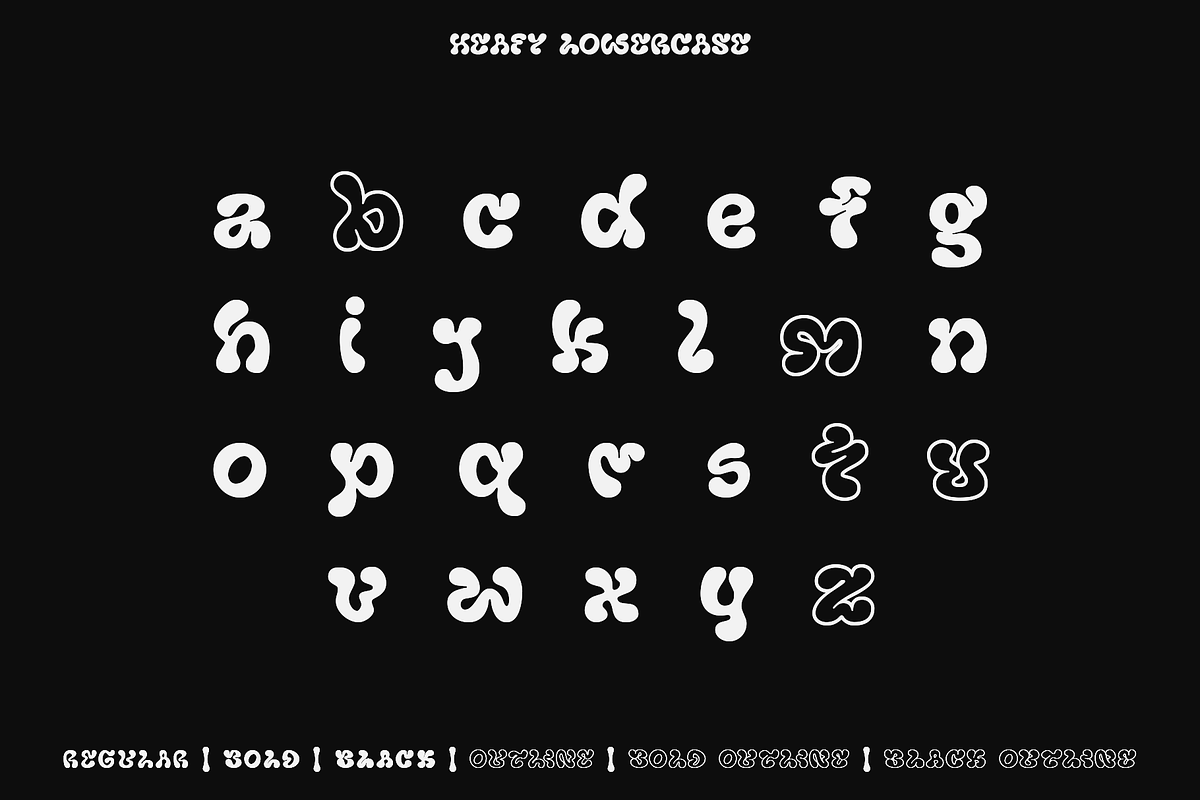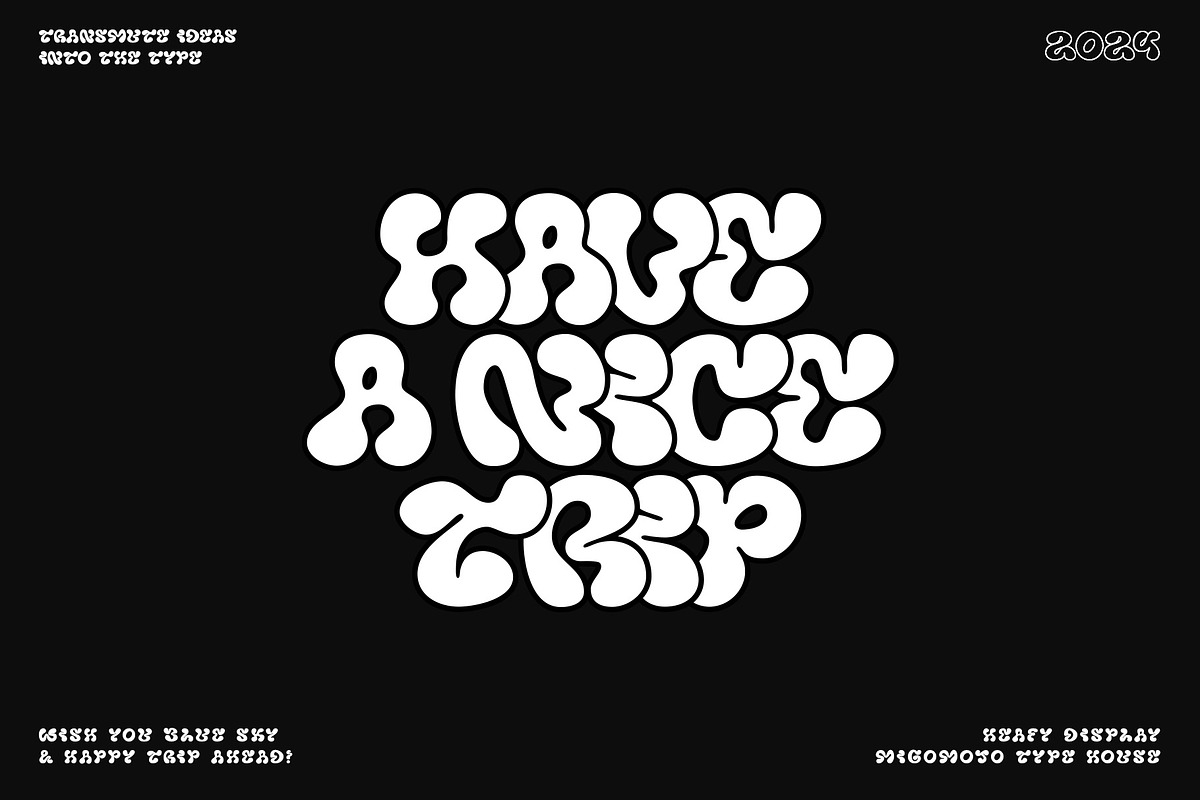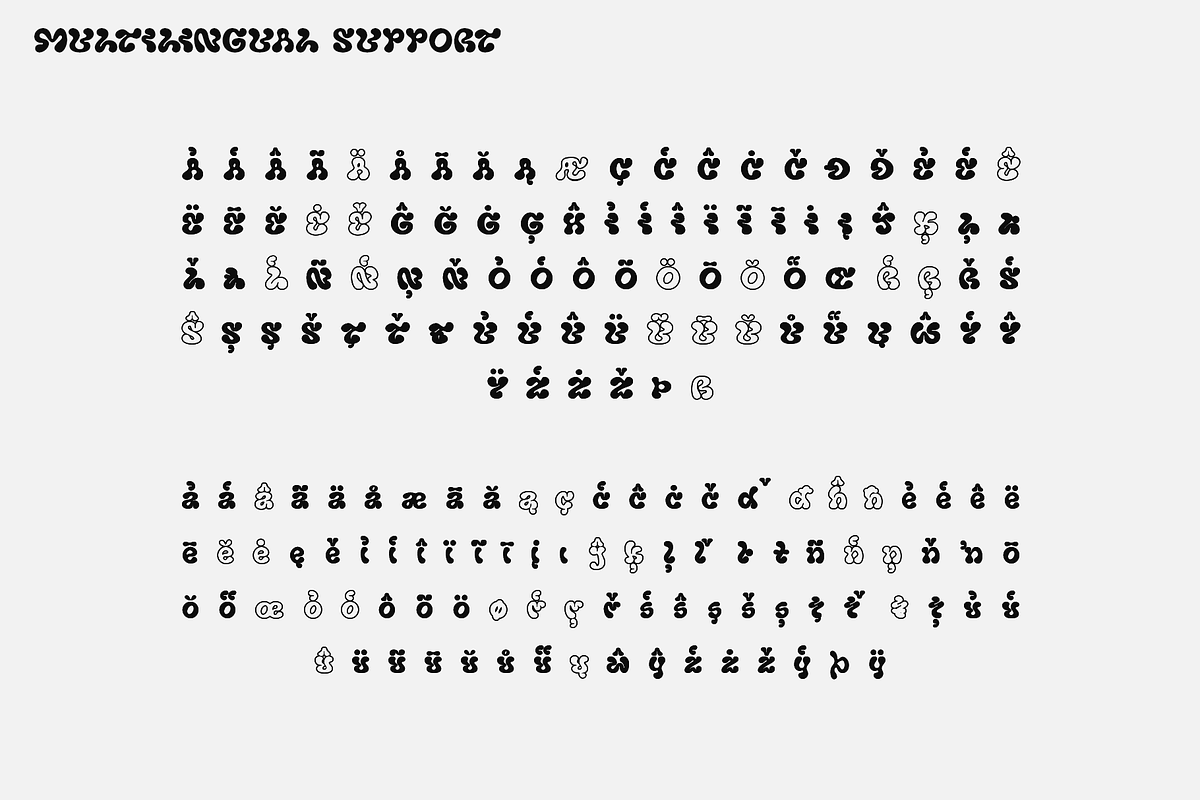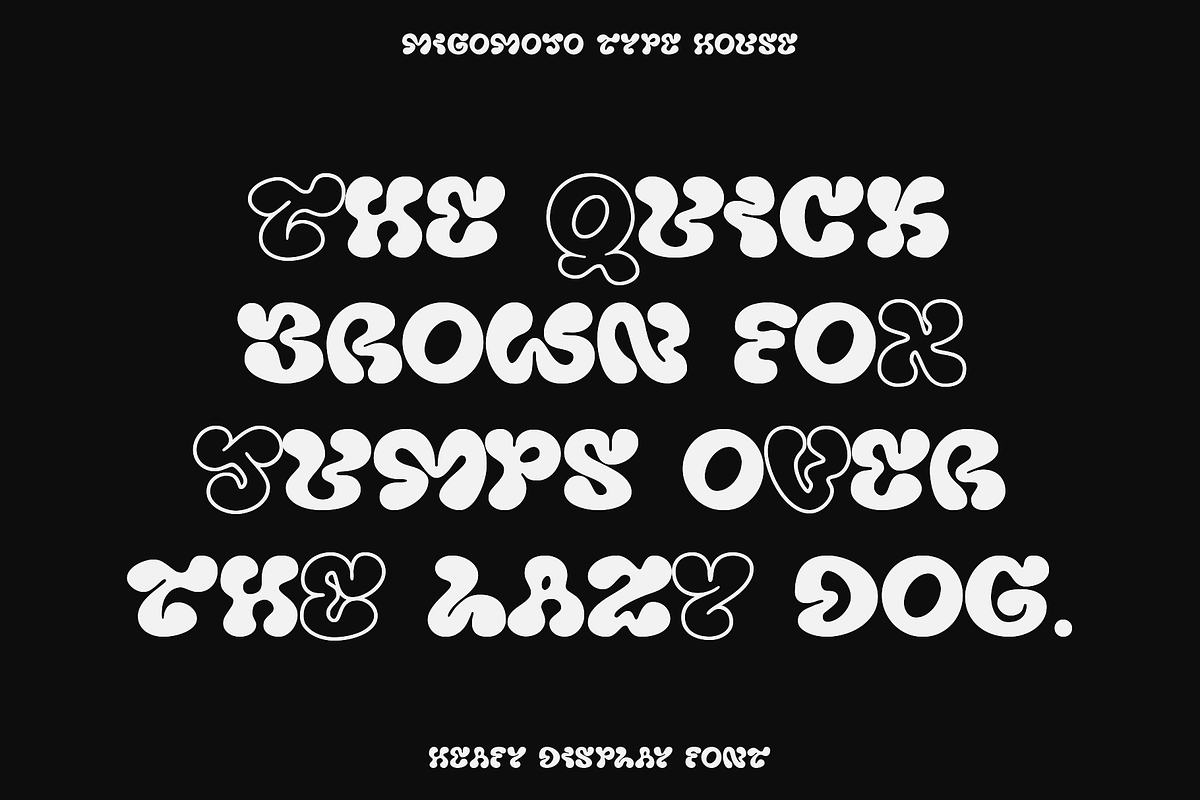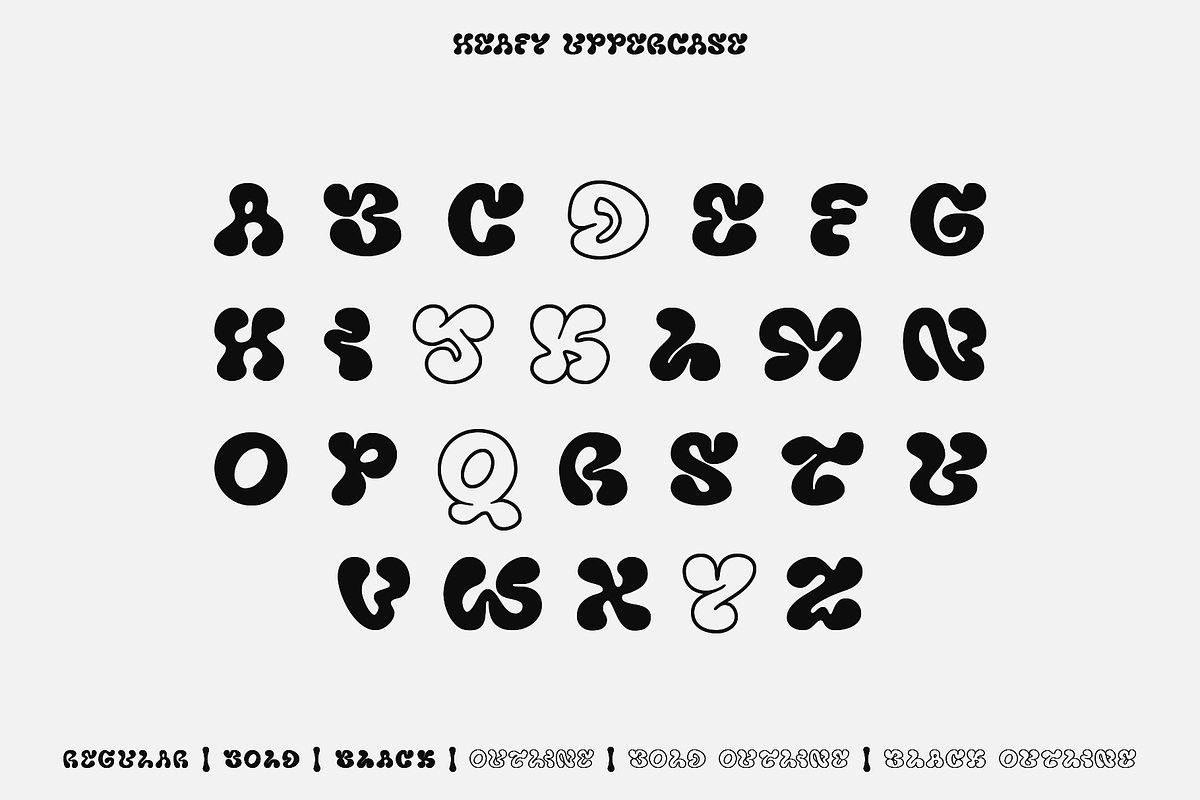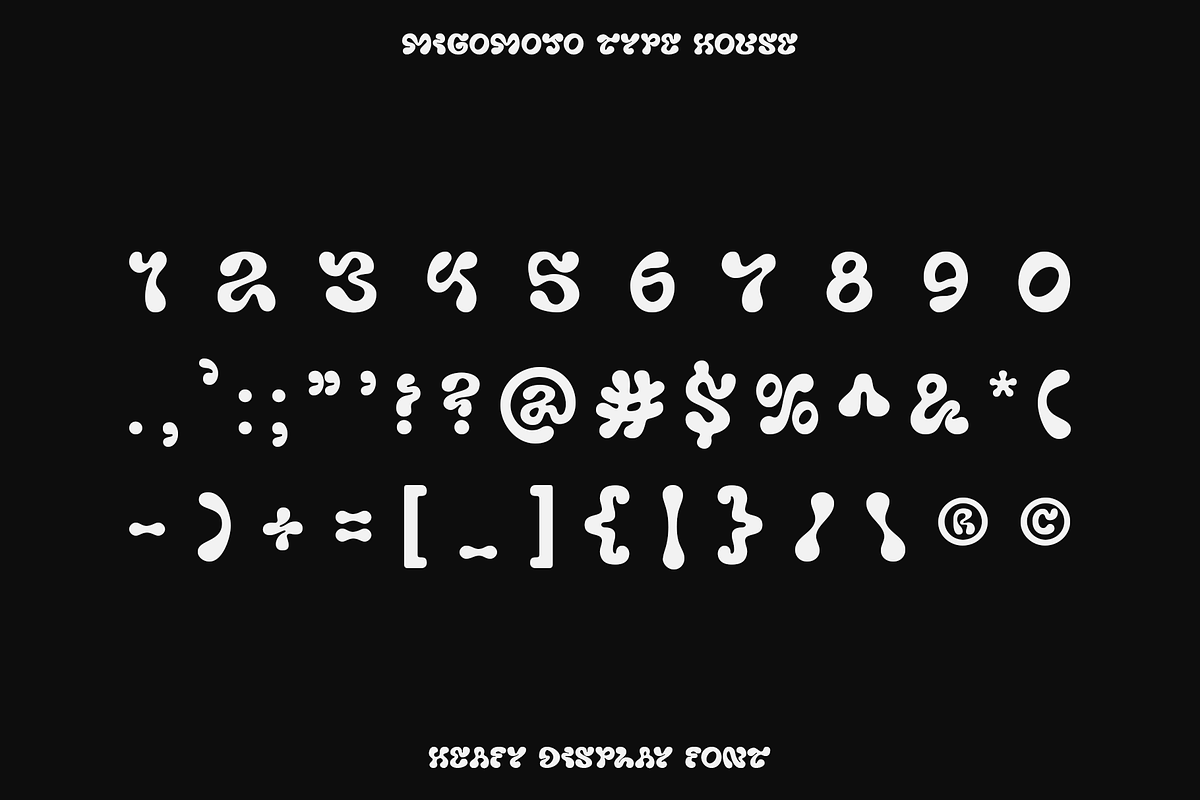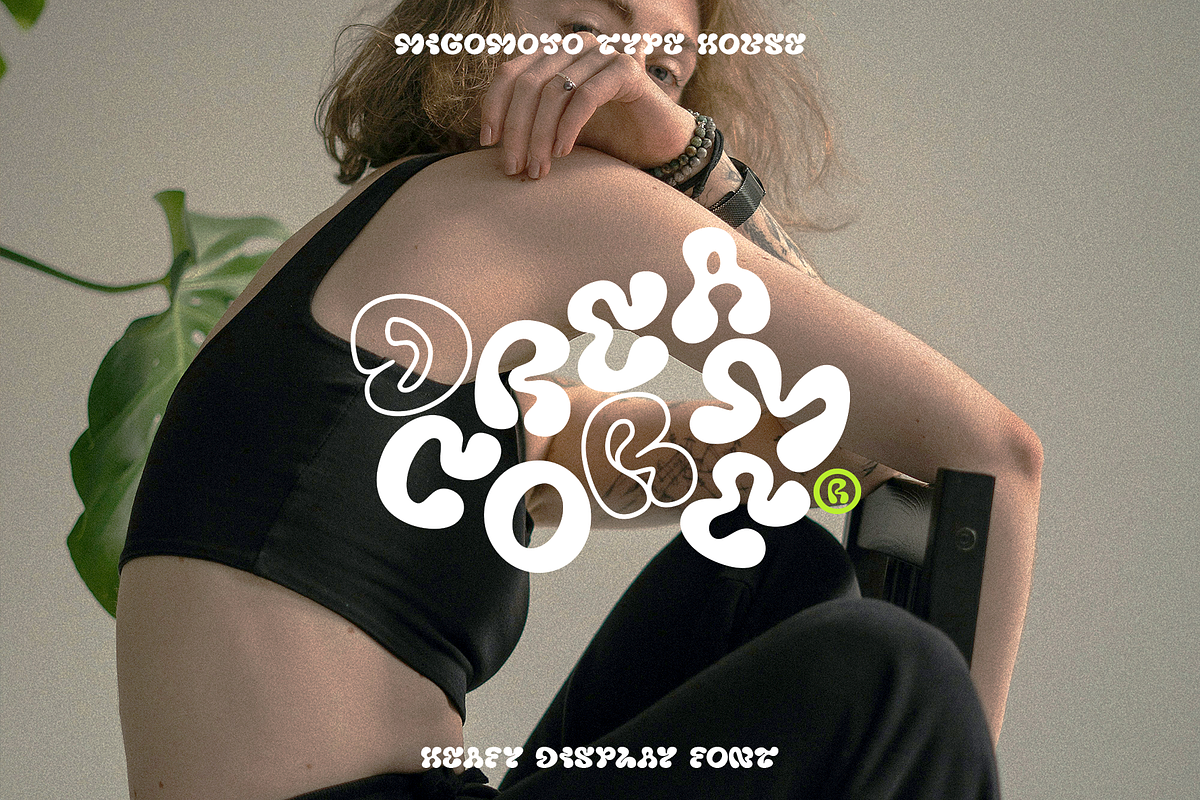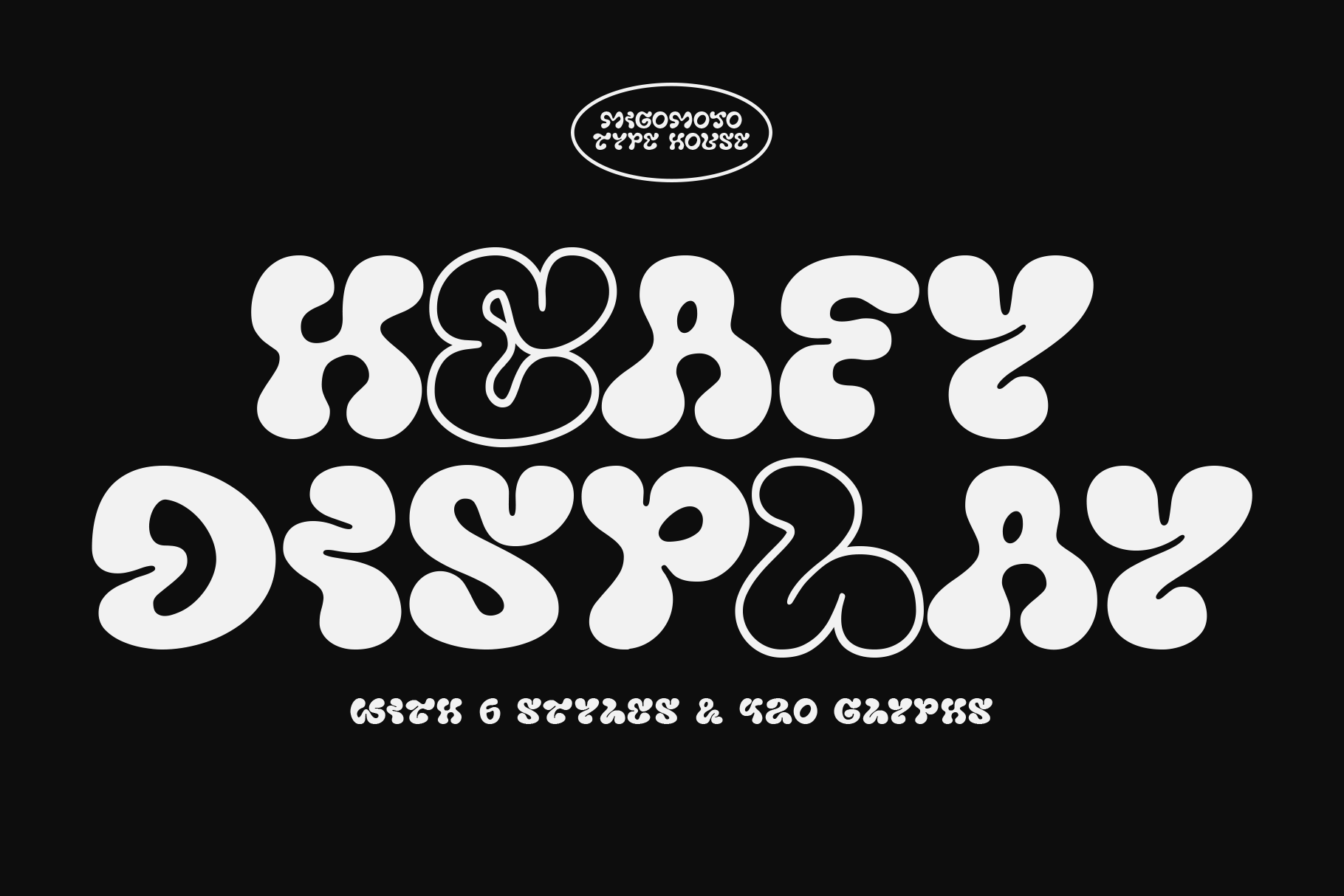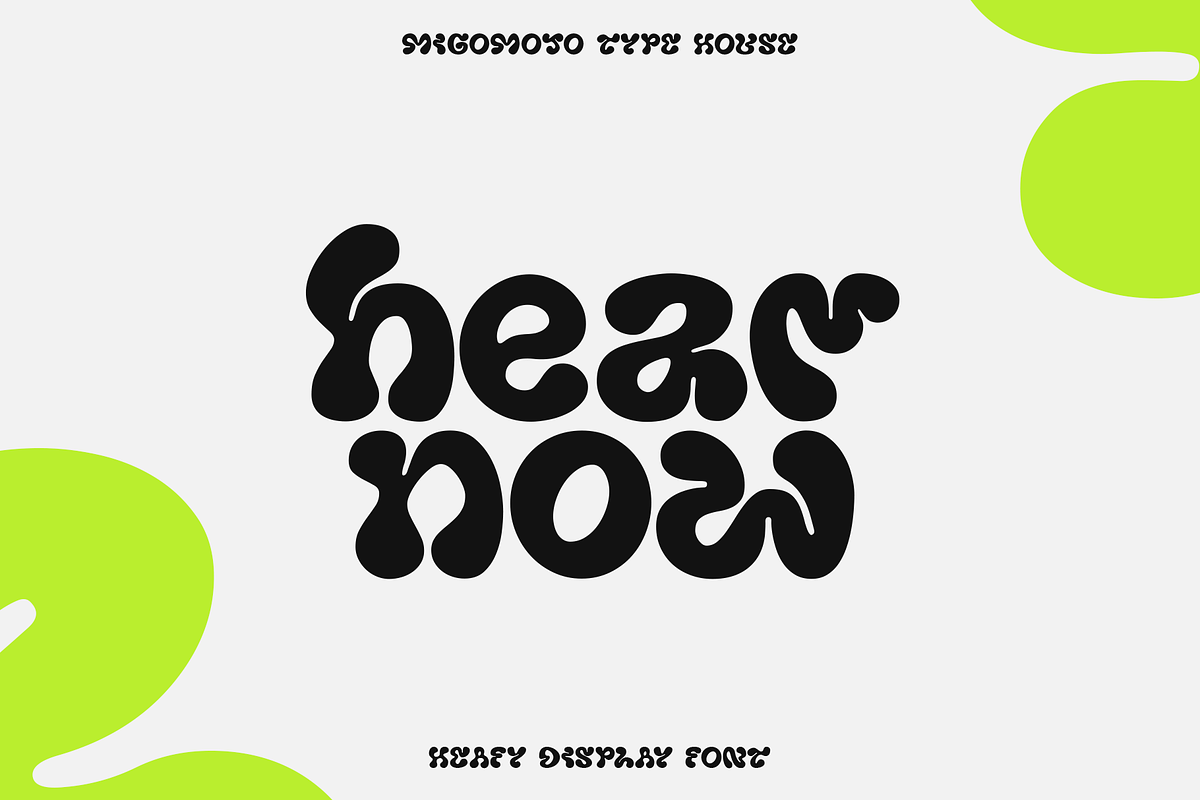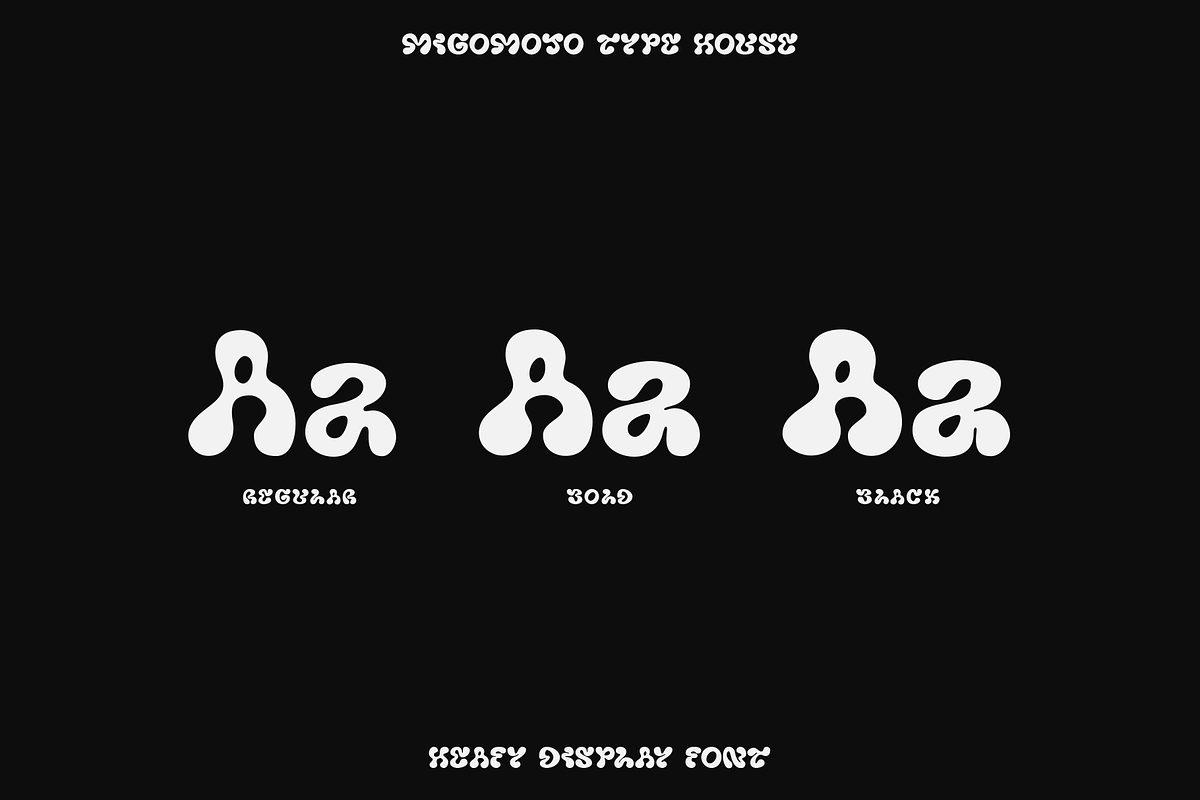
Heafy Display Font
Heafy is a bold, versatile display font characterized by its organic, liquid shapes and psychedelic undertones. Featuring a striking outline style and three distinct weights and with its comprehensive character set, including 420 glyphs and multilingual support, Heafy offers endless creative possibilities.
Heafy is designed to captivate attention and elevate your design. Ideal for making a bold statement on book covers, posters, packaging, and digital displays, Heafy adds a touch of design edge with a dream core twist. Cheers!